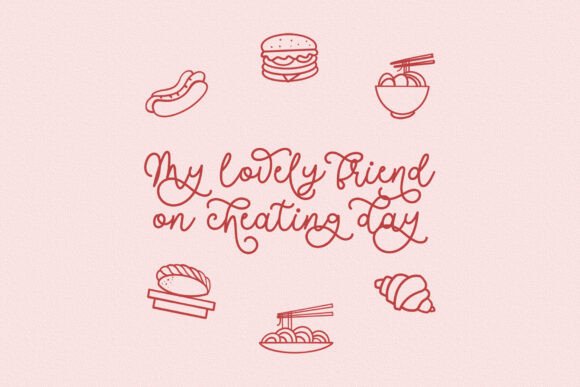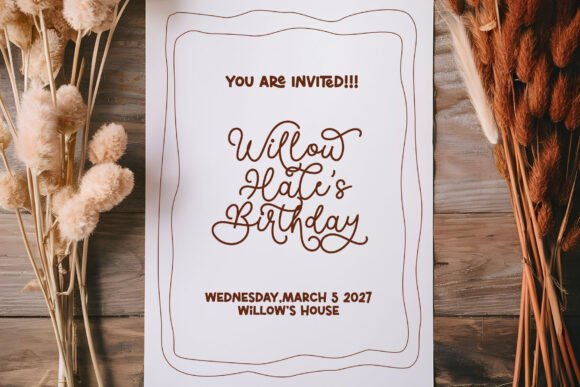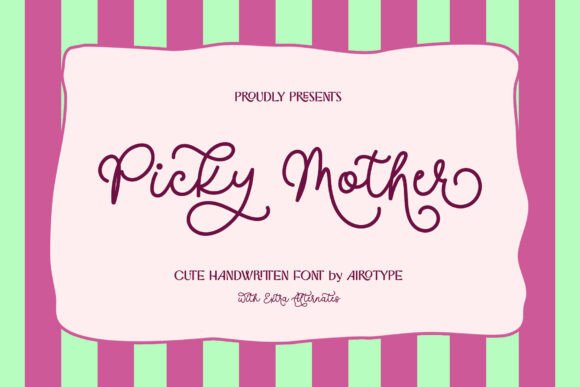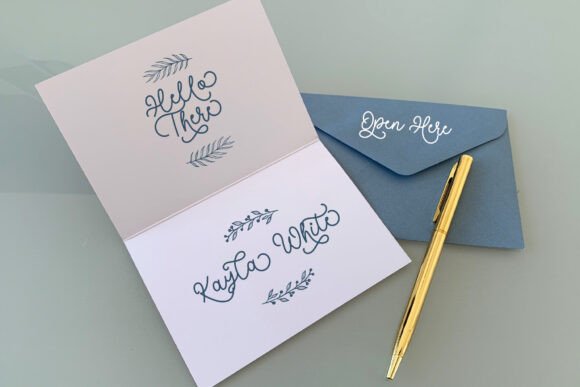
Picky Mother Font: Cute Handwritten Script for Wedding Invitations & DIY
About the Picky Mother Font
Elevate your designs with Picky Mother Font, a font that combines sophistication with readability. Picky Mother is a cute and bouncy single-line handwritten font. It emits fun, cuteness, and beauty.
This font has extra glyphs that can be used to give more options in designing.
Picky Mother is pretty font for design with cute and fun themes, such as greeting cards, wedding invitations, t-shirt design, crafting, stickers, sublimation, and many more.
Picky Mother’s playful energy makes it ideal for projects requiring a lighthearted touch, such as children’s books, branding for sweet treats, or packaging for whimsical products. Its informal style shines in short headlines, logos, and social media graphics. However, its single-line nature and limited x-height make it unsuitable for extended body text or UI elements where readability is paramount.
Pairing Picky Mother with a clean sans-serif like Open Sans for body text provides excellent contrast and readability. For a more sophisticated feel, consider a delicate serif like Lora to balance its casual charm. Avoid pairing it with overly bold or geometric fonts, which would clash with its handwritten aesthetic.
The font’s overall personality is undeniably cheerful and friendly, conveying a sense of warmth and approachability. This makes it a perfect choice for brands aiming for a youthful and approachable image.
Picky Mother Font Usage Examples
Picky Mother Font Example